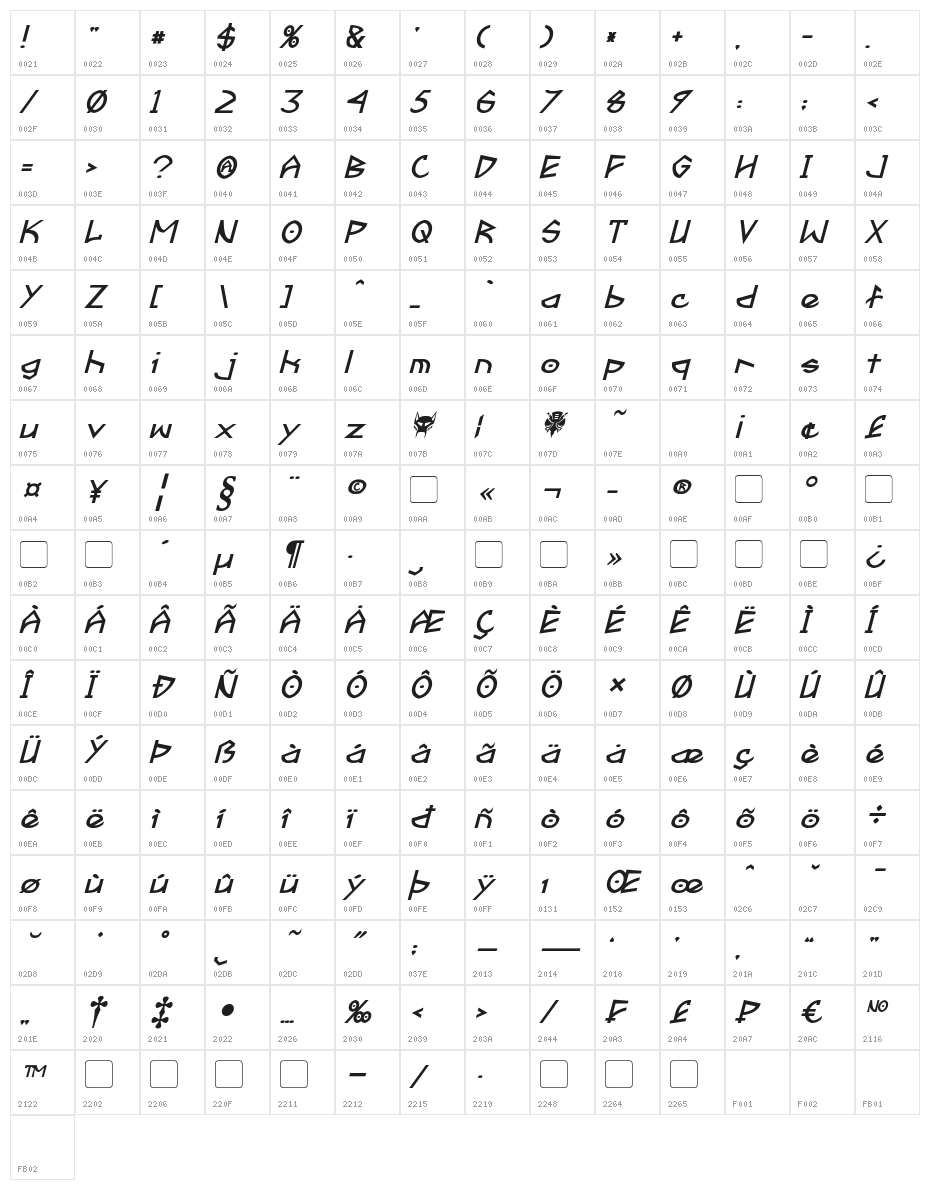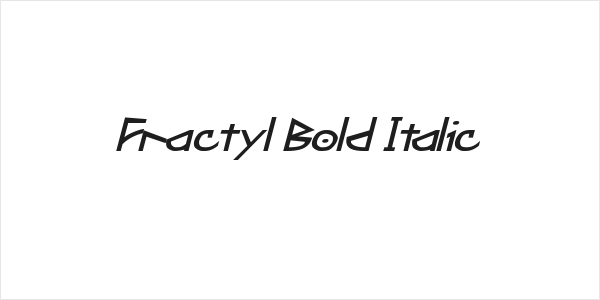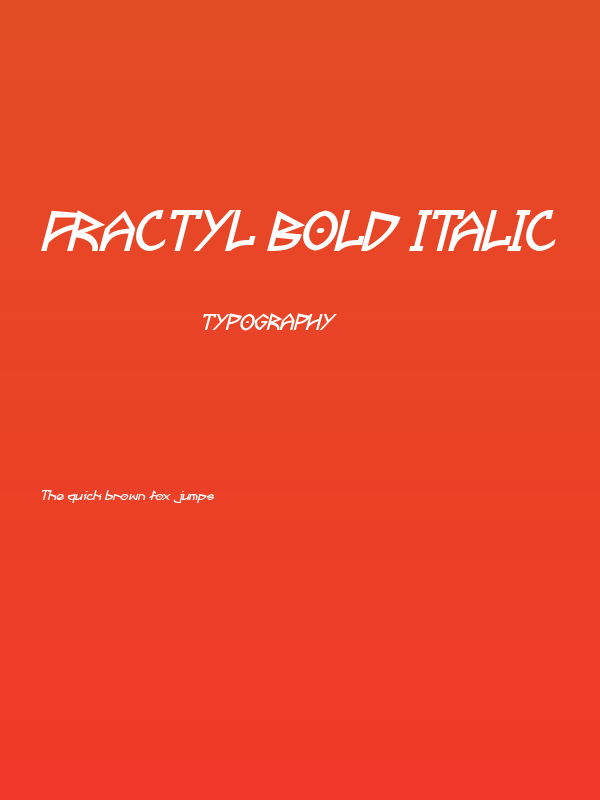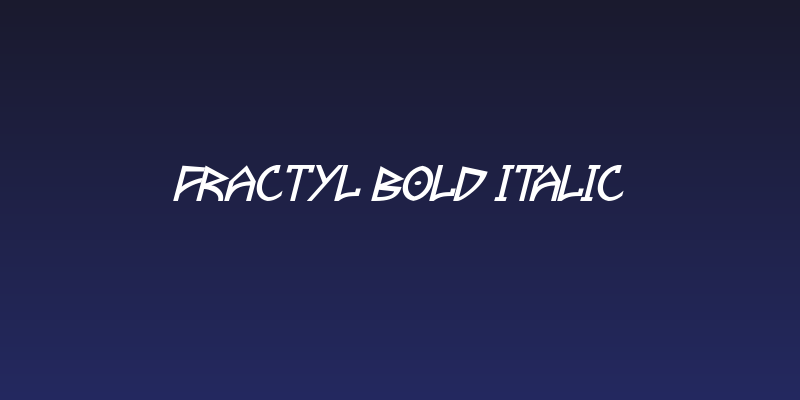
Fractyl Bold Italic Font
Fractyl Bold Italic Description
This font features a bold and italicized style with a dynamic and energetic appearance. The characters are sharply angled, giving a sense of movement and flair. The uppercase letters are particularly striking, with exaggerated curves and points that create a sense of urgency and excitement. The lowercase letters maintain this dynamic style, ensuring consistency throughout the text. The numerals are equally bold, with a unique design that complements the overall aesthetic. Special characters are included, each crafted with the same attention to detail and style. This font is perfect for projects that require a bold statement and a modern, edgy look.